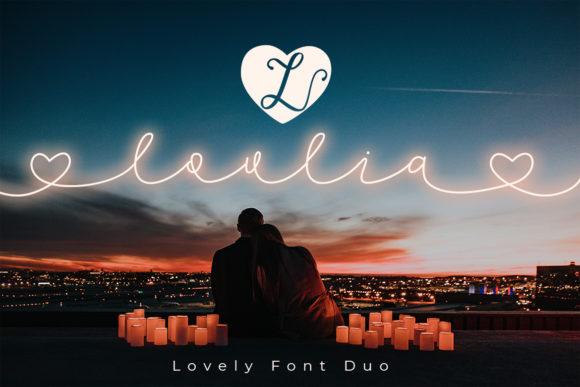
Enter the world of Lovlia Font, a captivating handwritten font duo that will ignite your creativity and transform your designs into masterpieces. With its enchanting blend of a graceful script and a swirling monogram font, Lovlia Font breathes life into your words, adding a touch of elegance and sophistication to every project.
Immerse yourself in the beauty of Lovlia Font's seamless harmony. The script font, with its flowing lines and delicate curves, dances across the page like a heartfelt melody. Its organic charm lends an air of authenticity, evoking the intimacy of handwritten letters and the warmth of personal notes.
Complementing the script font is the swirly monogram font, a symphony of intricate swirls and flourishes that adds a touch of whimsical flair to your designs. Its ornate details evoke a sense of luxury and timeless elegance, making it the perfect choice for special occasions and formal invitations.
Together, these two fonts create a visual symphony that captivates the senses and leaves a lasting impression. Whether you're crafting wedding invitations, designing social media posts, or creating eye-catching greeting cards, Lovlia Font is the perfect choice to add a touch of magic and sophistication to your work.
Discover the endless possibilities of Lovlia Font and unlock your creative potential. Let your imagination soar as you explore the boundless beauty of this font duo, and create designs that leave a lasting impression. Fall in love with Lovlia Font today and elevate your projects to new heights of elegance and charm.